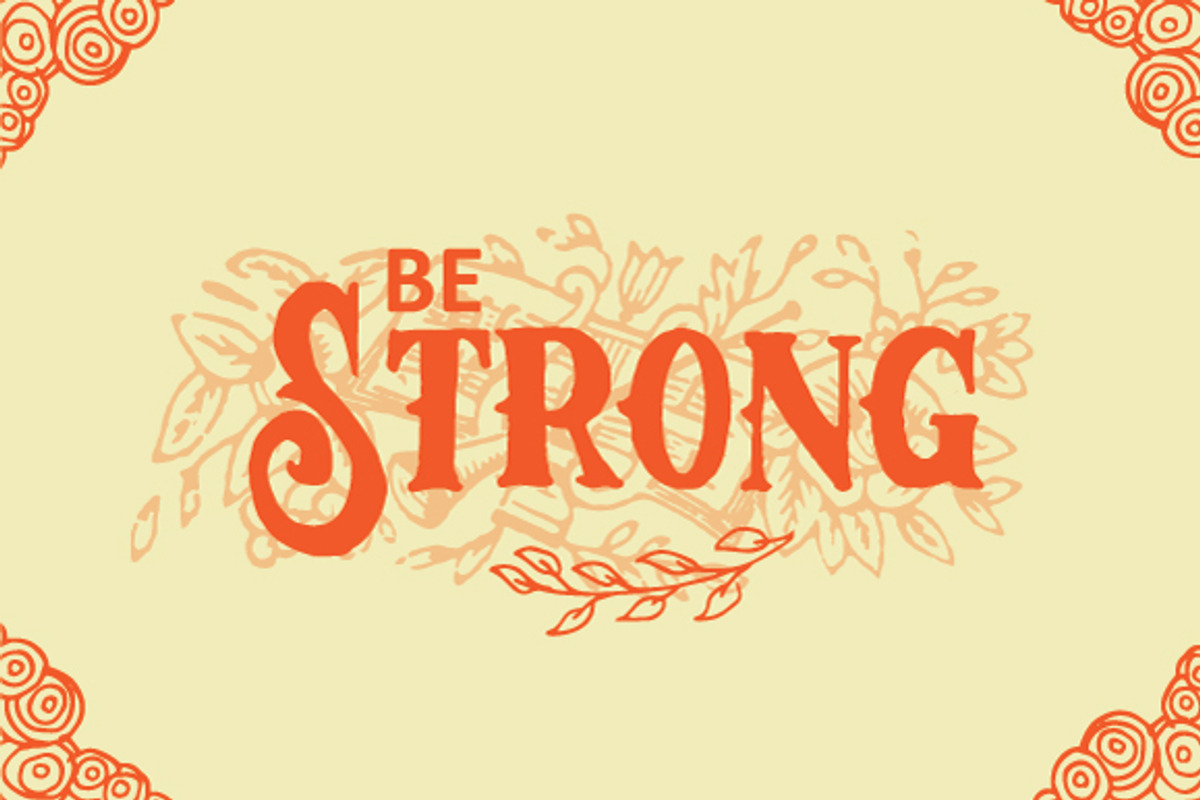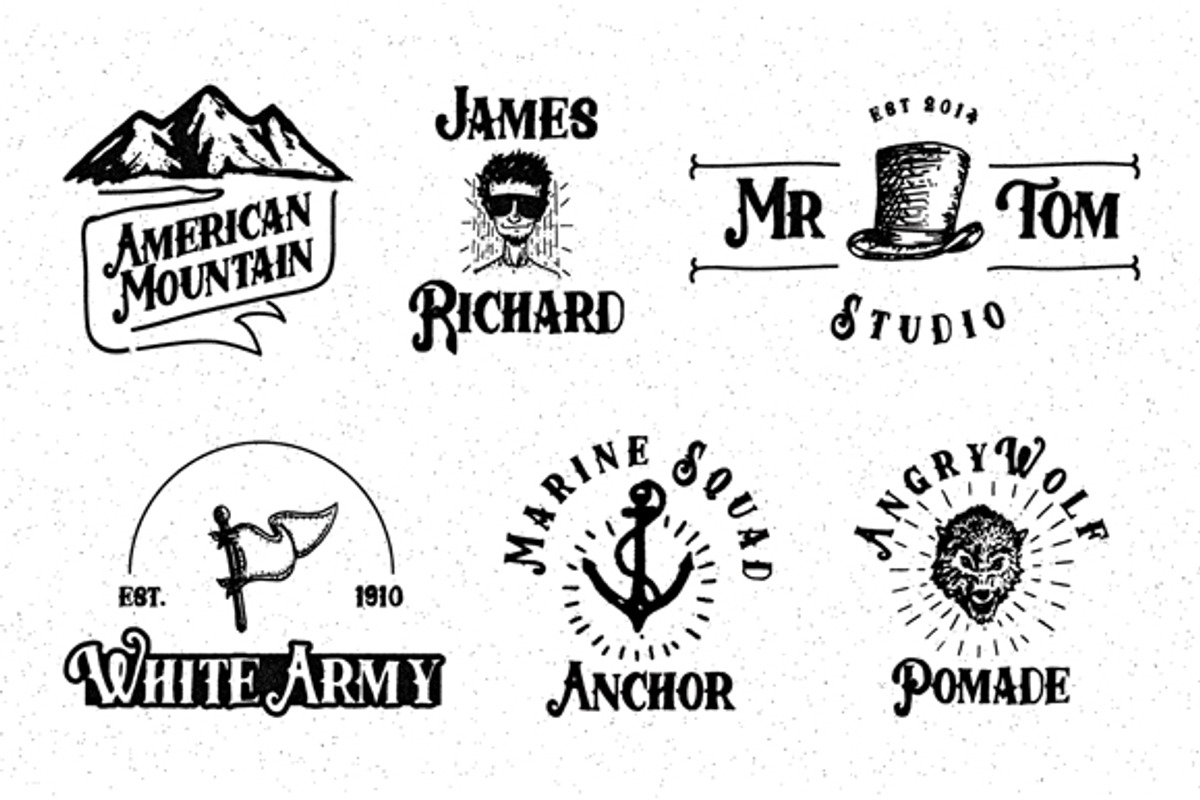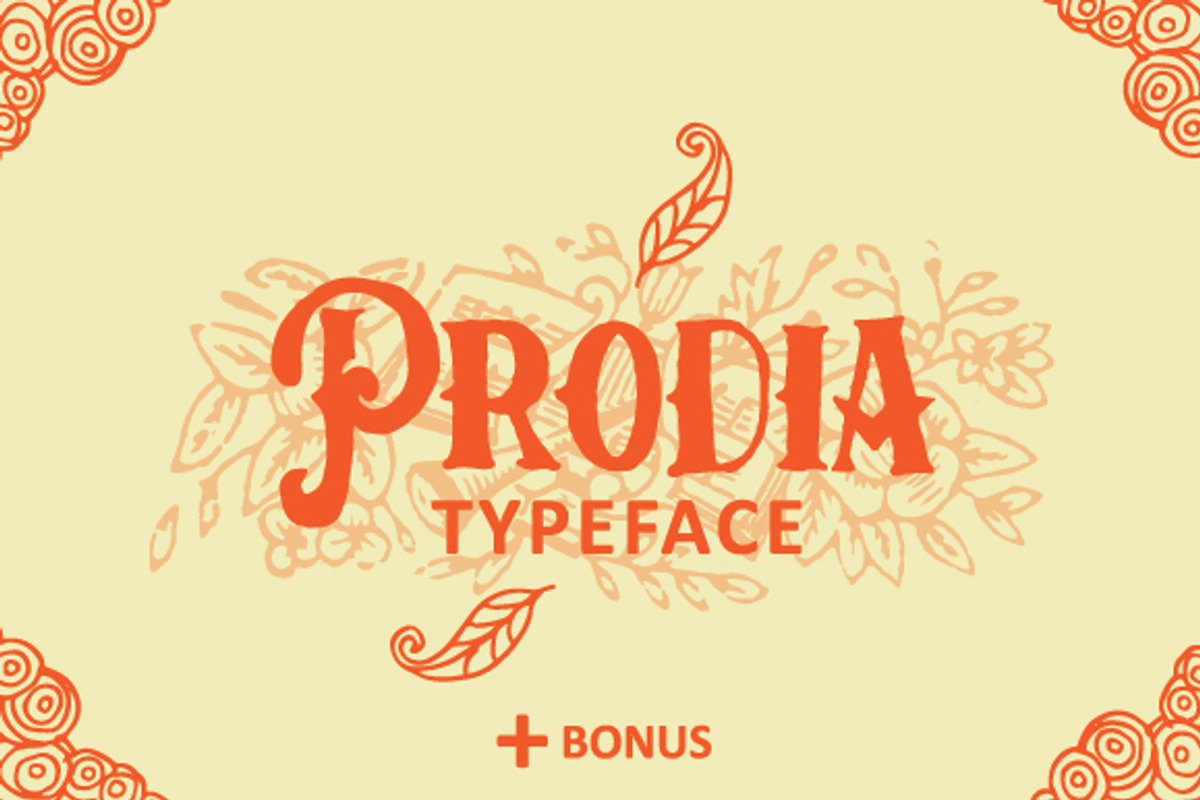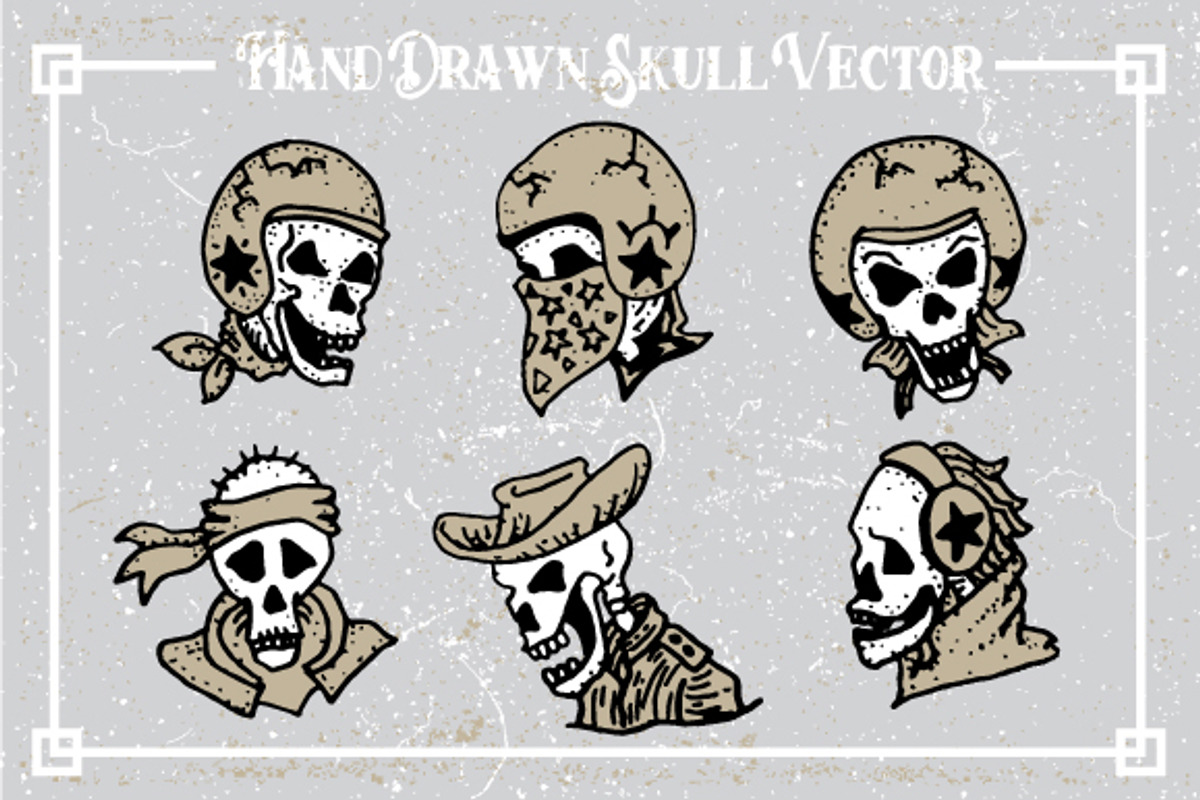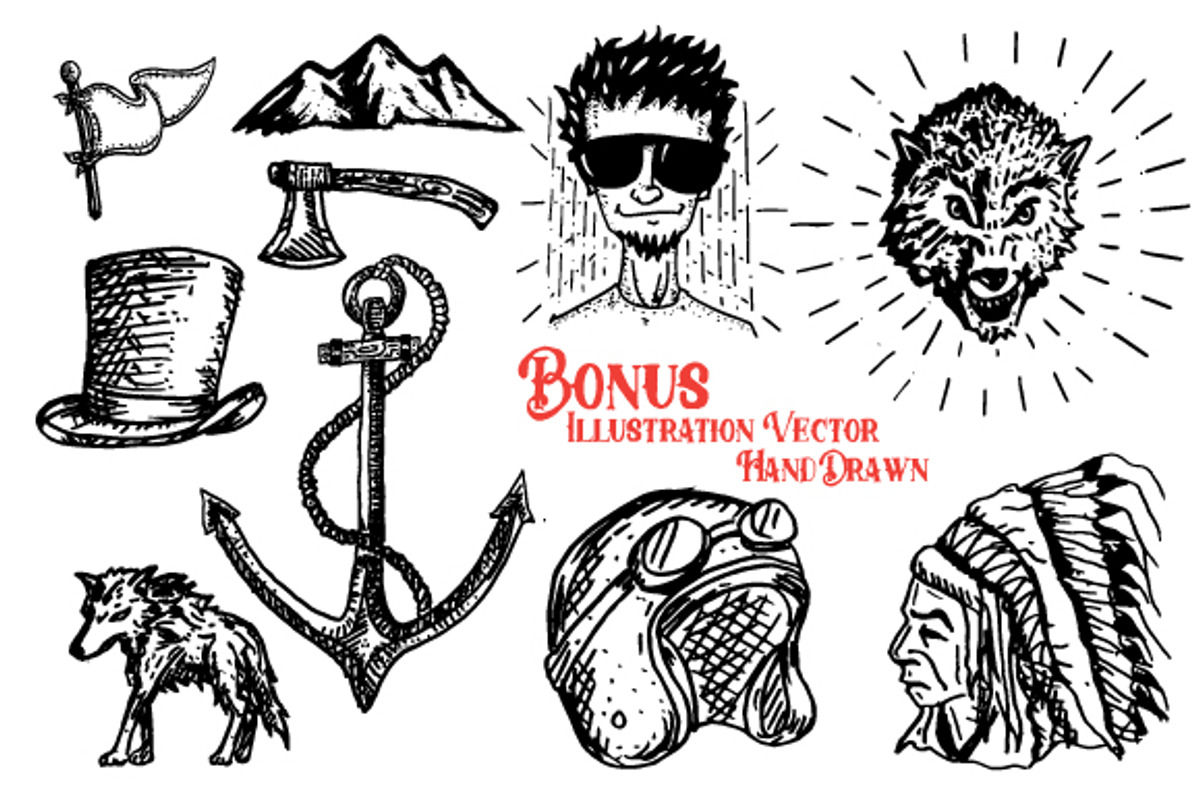
Prodia Typeface + Bonus
Prodia Typeface + Bonus by ianmikraz is a font selected for branding, posters, packaging, typography.
Why Prodia Typeface + Bonus is worth a look
Prodia Typeface + Bonus by ianmikraz fits naturally into Branding, posters, packaging, typography.